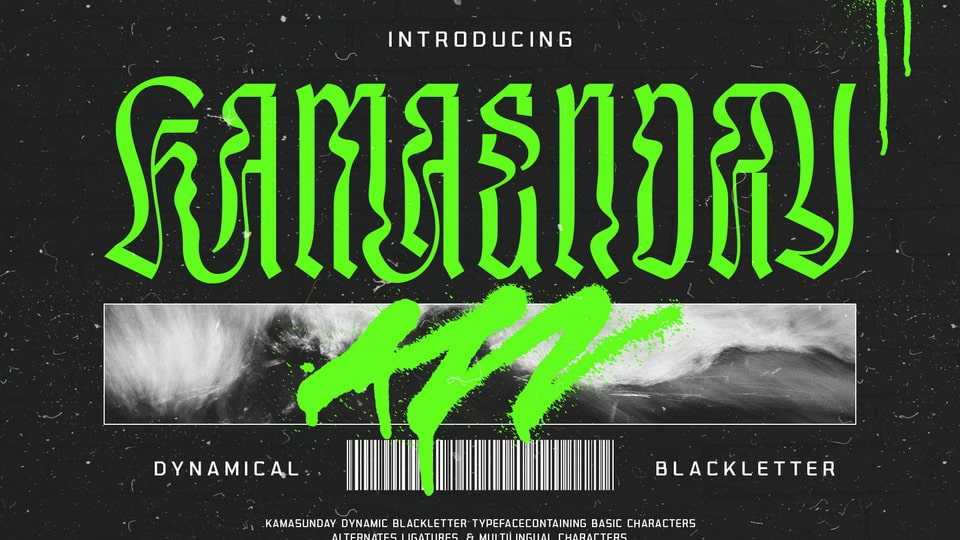
Download Kamasunday font, a dynamic blackletter typeface that seamlessly blends the timeless elegance of blackletter script with a modern, dynamic twist. Kamasunday font features a captivating wave-like design that adds a sense of movement and energy to your text.